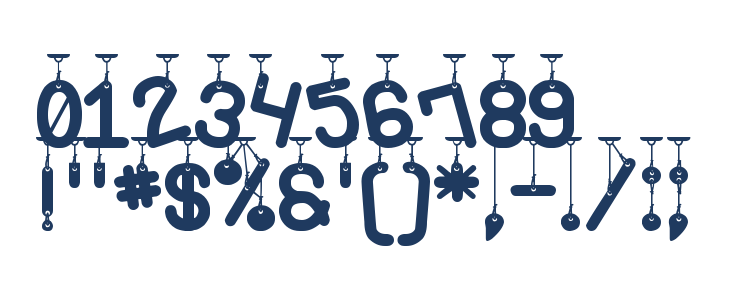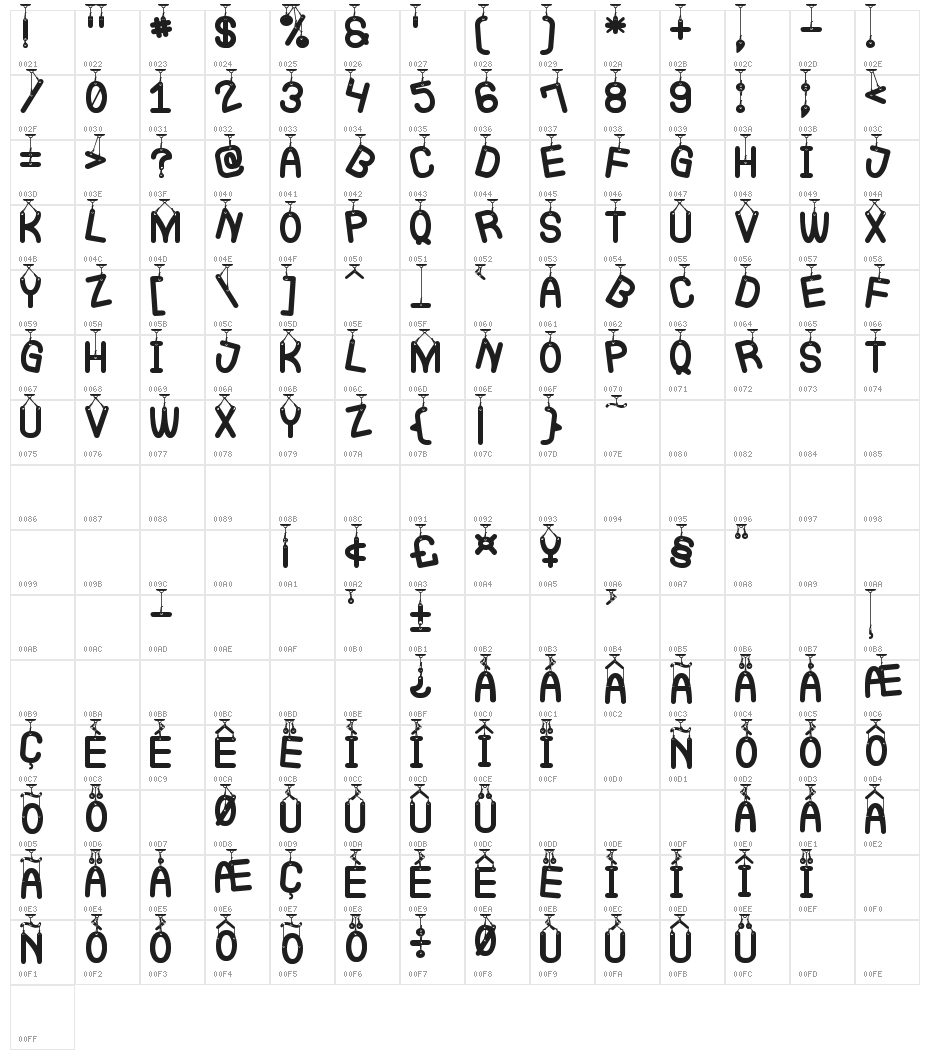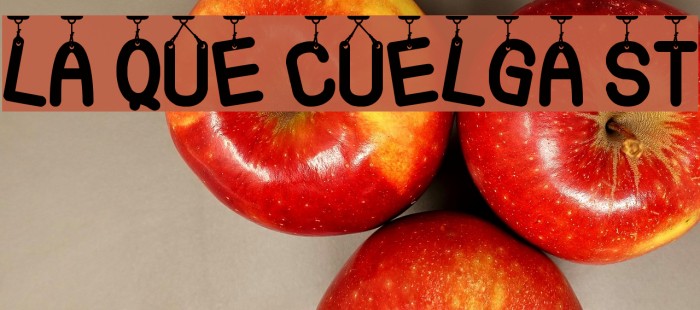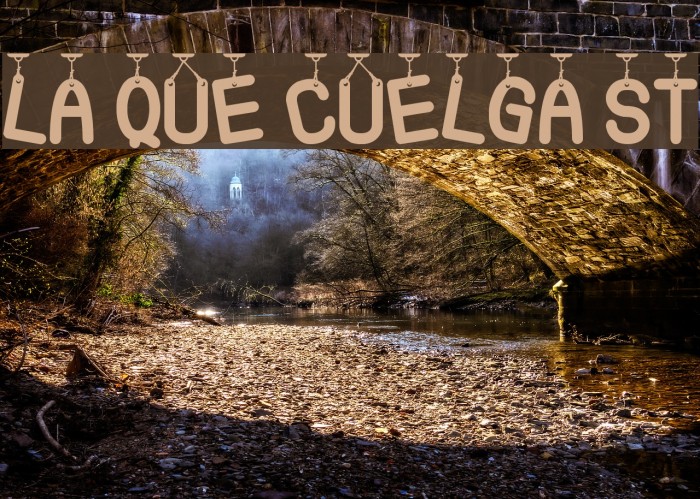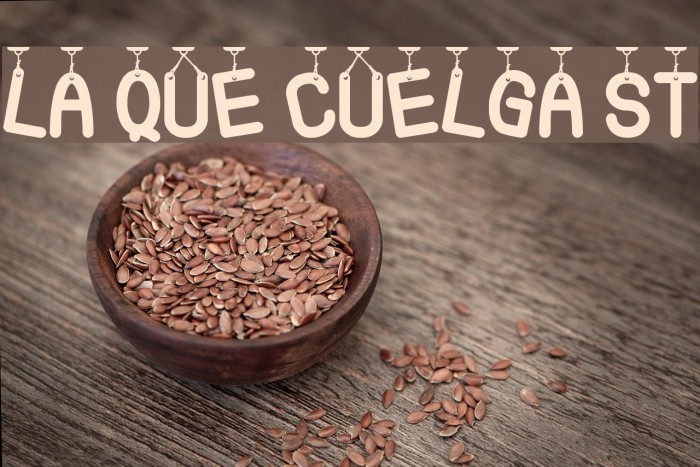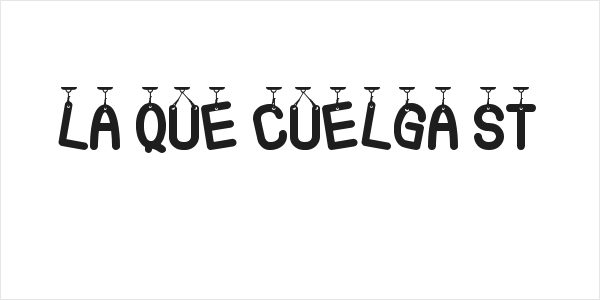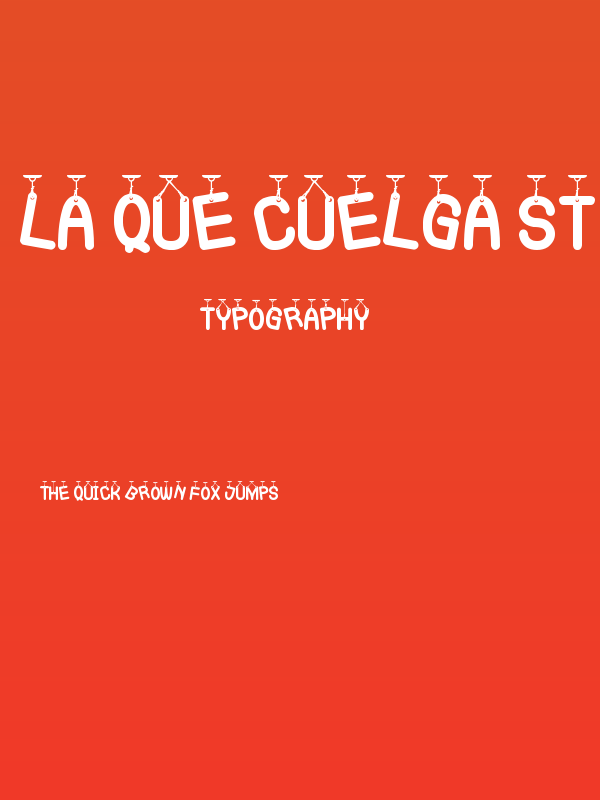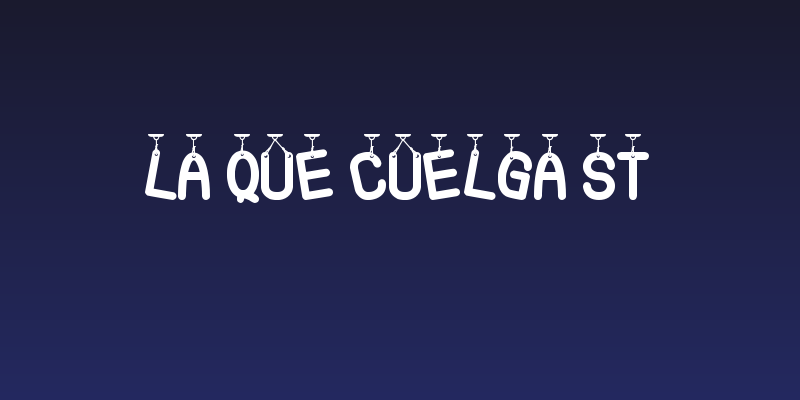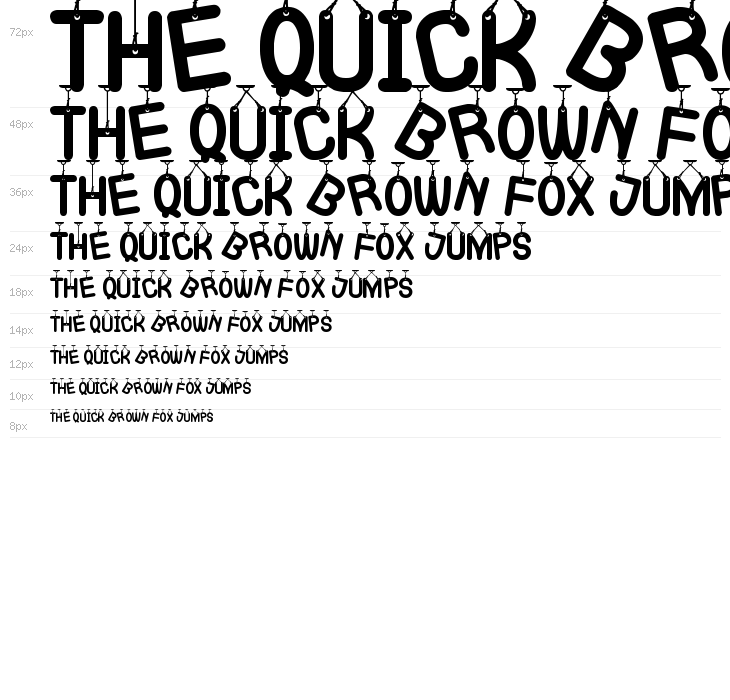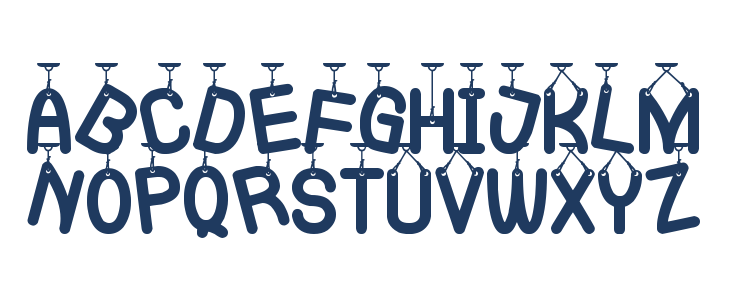
La Que Cuelga St Font
This playful and unique font features characters that appear to be hanging from hooks, creating a whimsical and eye-catching effect. The letters are bold and rounded, with a consistent thickness throughout, giving them a sturdy and solid appearance. The playful design is enhanced by the hanging elements, which add a sense of movement and fun. This font is perfect for projects that require a touch of humor or creativity, making it ideal for children's books, playful branding, or quirky advertisements. The consistent weight and rounded edges ensure readability while maintaining a distinct and memorable style.
Overall StylePlayful, Whimsical
Proposed ProjectsChildren's books, playful branding, quirky advertisements, creative posters.